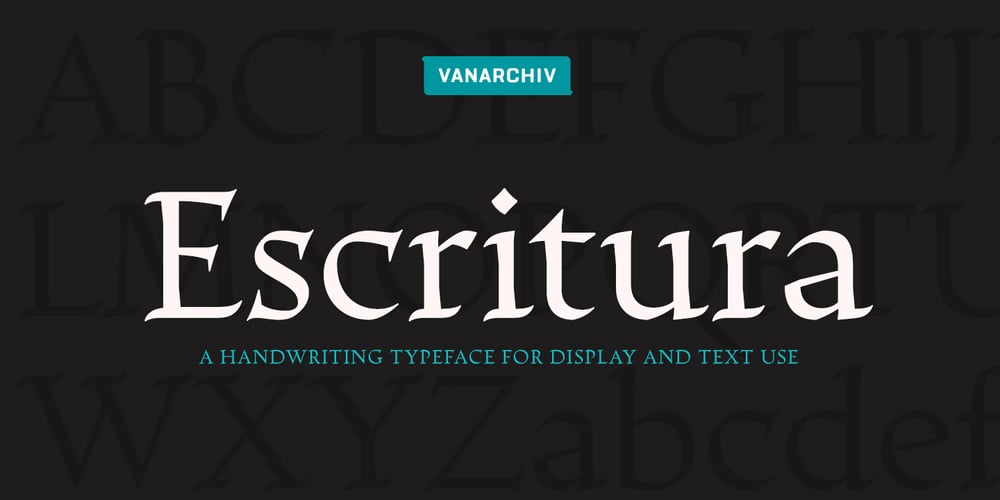
Escritura Font Family was designed by Ricardo Santos and published by Vanarchiv. Escritura contains 20 styles and family package options. The handwriting typeface Escritura was created for editorial purposes and the letter forms are influenced by chancery handwriting from the Italian Renaissance. The asymmetrical shapes of the undulating serifs cause the characters to have a large aperture. Originally designed for display sizes, the typeface also comes in a text version for small sizes. With taller vertical proportions, the text version has slightly longer serifs and increased white space between the characters to optimize legibility in small sizes. Ascenders and descenders and serifs are shorter in the display version, which has more economical letter spacing resulting in a visually compact text image. The stress in the letter strokes create changing widths according to their direction, improving the calligraphic rhythm in the characters. The oblique crossbar as well as other typographic details lend the typeface that typical Renaissance atmosphere.